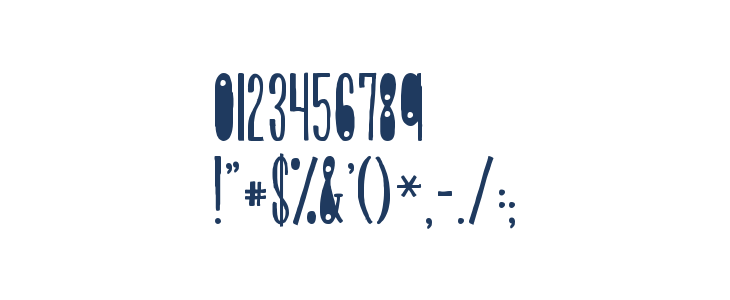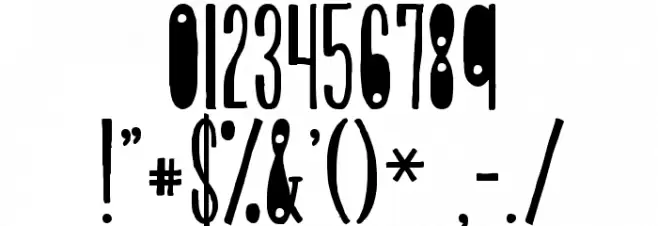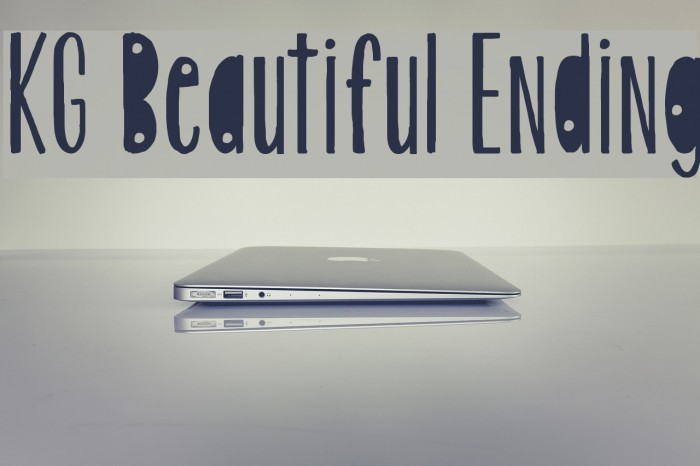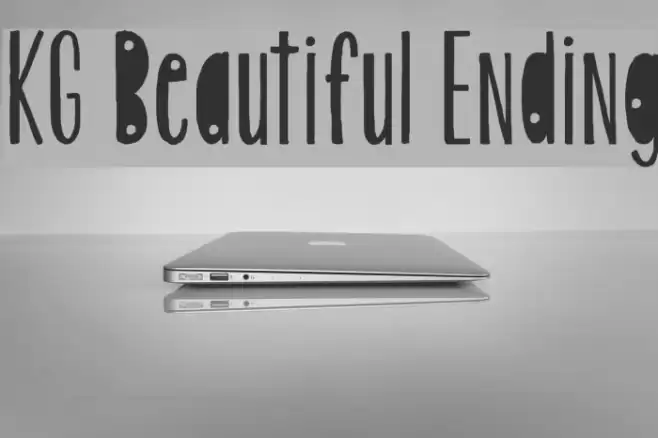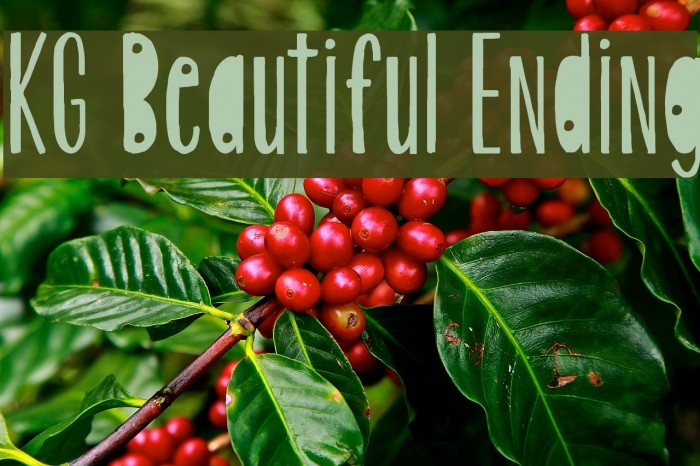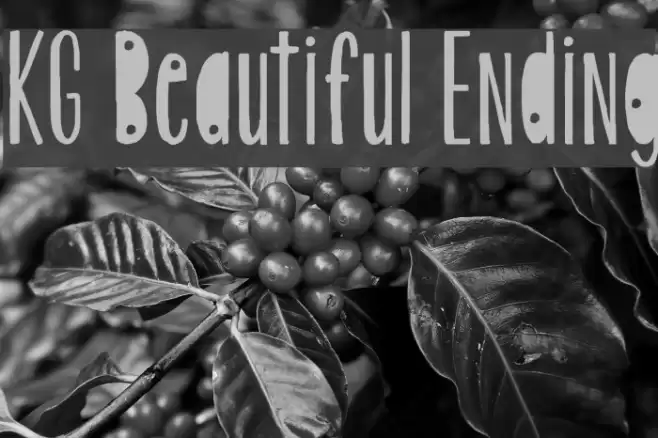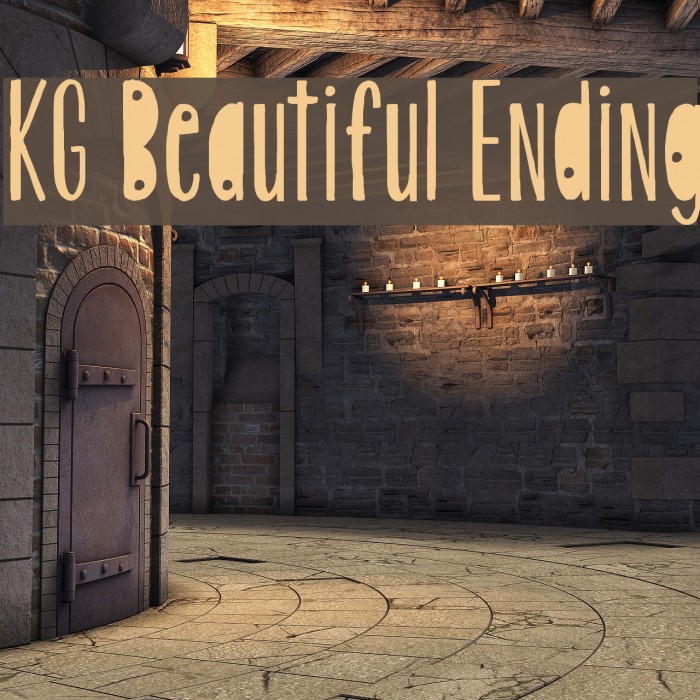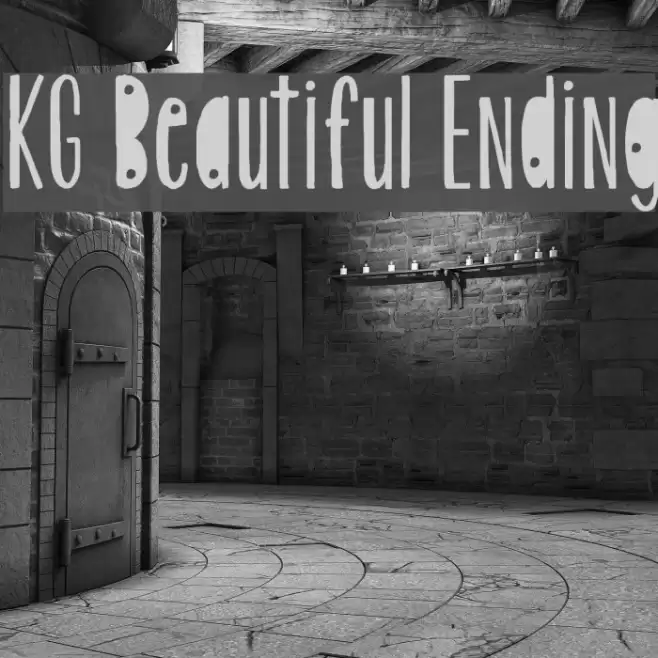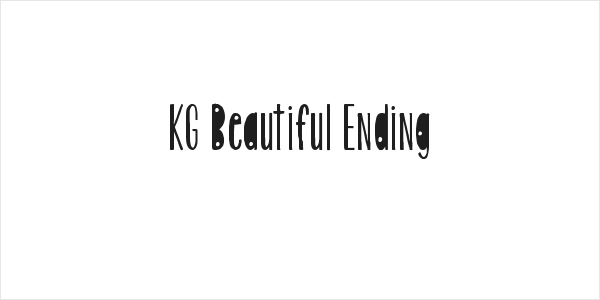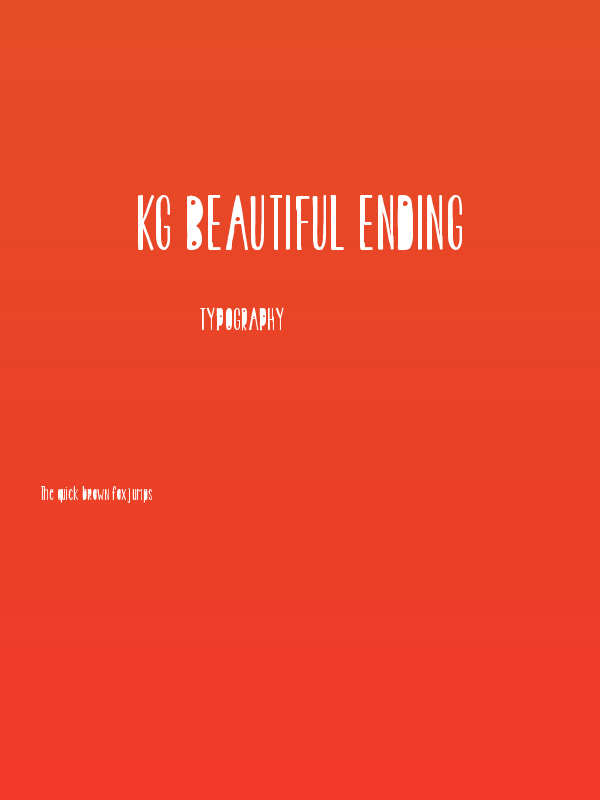
KG Beautiful Ending Font
KG Beautiful Ending Description
This font features a playful and whimsical design with a mix of thick and thin strokes, creating a dynamic and eye-catching appearance. The uppercase letters are bold and elongated, while the lowercase letters maintain a consistent height with a slightly narrower form. The numbers follow a similar style, with varying stroke widths adding to the font's unique character. The special characters are creatively integrated, maintaining the overall playful theme. This font is ideal for projects that require a fun and informal touch, such as children's books, party invitations, or creative branding.
| Proposed Projects | Children's books, party invitations, creative branding, posters. |